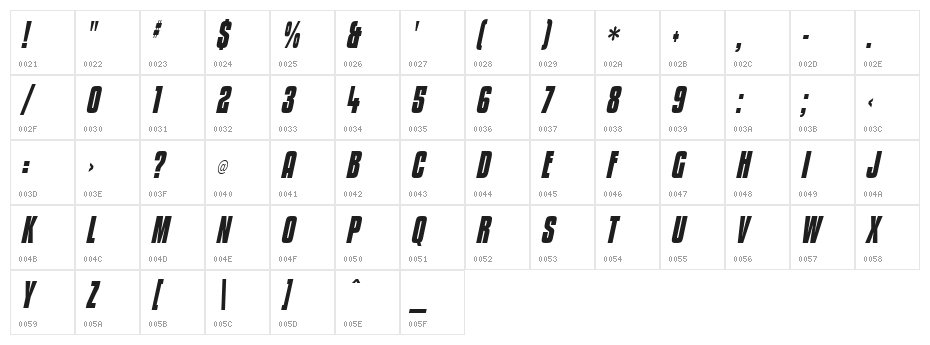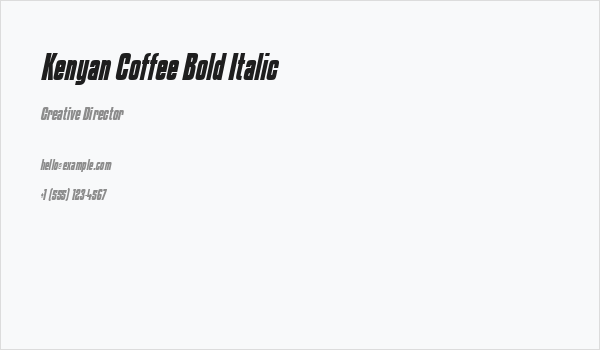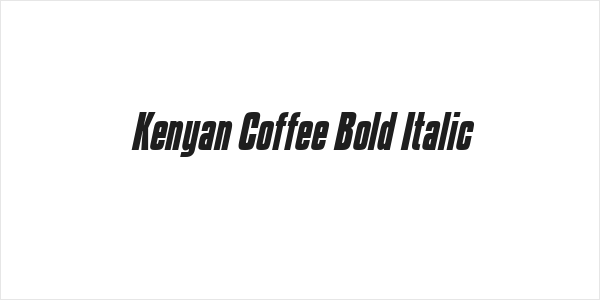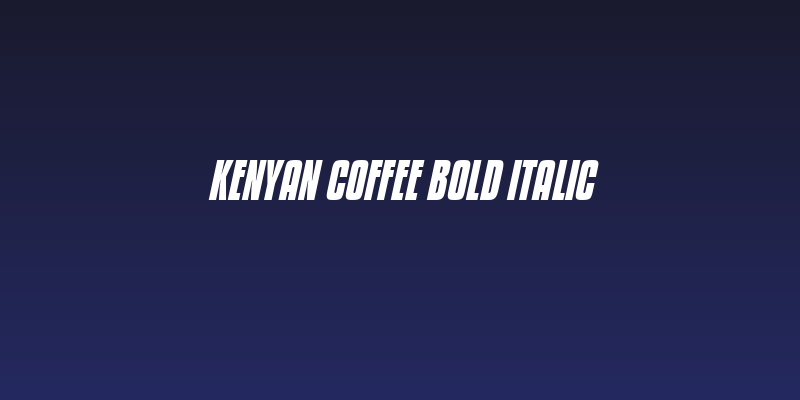
Kenyan Coffee Bold Italic Font
Kenyan Coffee Bold Italic Description
This font features a bold and italicized style, characterized by its strong, impactful presence. The letters are slightly condensed, giving it a compact appearance, while the italic slant adds a dynamic and forward-moving feel. The strokes are thick and consistent, providing a high contrast that enhances readability and visual interest. The overall design is modern and assertive, making it suitable for attention-grabbing headlines and titles. Its boldness and slant convey a sense of urgency and energy, ideal for projects that require a strong visual statement.
| Proposed Projects | Ideal for headlines, posters, advertisements, and branding materials that require a strong, impactful look. |